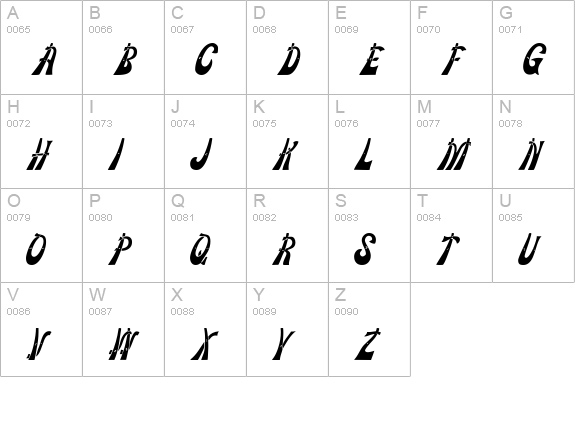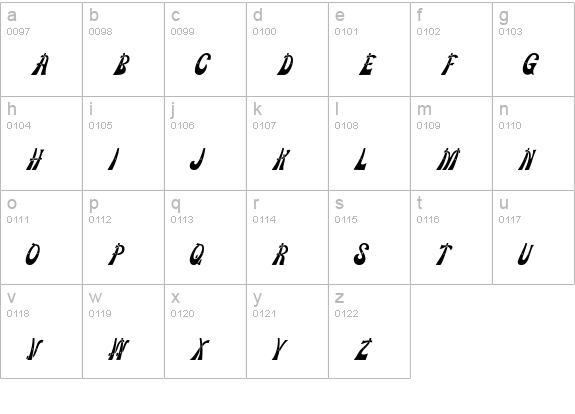
ChipperDisplay Font Details
ChipperDisplay font is a unique and playful typeface that exudes a cheerful and friendly vibe. With its whimsical and eye-catching design, this font is perfect for adding a touch of fun to your projects. The lively and energetic letterforms of ChipperDisplay make it ideal for titles, headlines, and other display purposes. One of the best things about ChipperDisplay font is that it is available for free download at FontsMarket.com. This means that you can easily access this delightful font to enhance your designs without any cost. Whether you're working on a poster, flyer, or social media graphic, ChipperDisplay font will surely help you stand out with its charming and lively appearance. Don't miss out on the opportunity to add a playful and engaging touch to your projects with ChipperDisplay font. Download it for free today at FontsMarket.com and let your creativity shine!